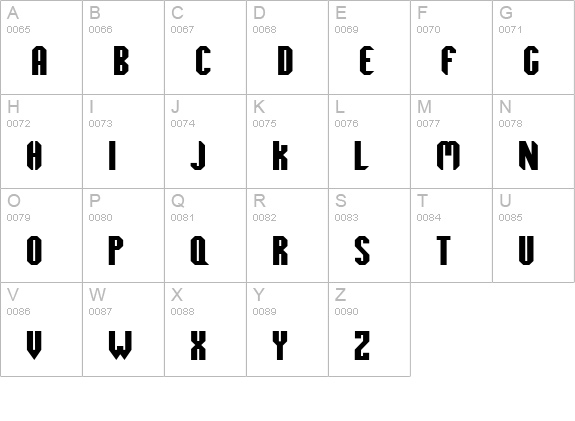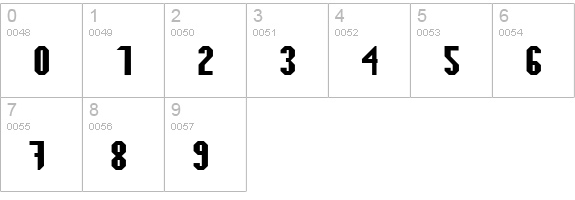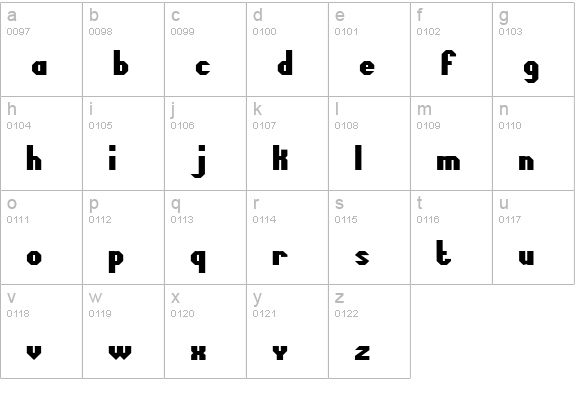
Octogone Tryout Font Details
Octogone Tryout font is a unique and eye-catching display font that combines modern aesthetics with a touch of elegance. Its octagonal shape and sharp edges give it a bold and distinctive look, making it perfect for headlines, logos, posters, and other design projects that require a strong visual impact. This font is available for free download at FontsMarket.com, making it accessible to designers and creatives looking to add a fresh and dynamic element to their work. With its clean lines and geometric design, Octogone Tryout font is sure to make a statement and stand out from the crowd. Whether you're working on a branding project, a website design, or a promotional campaign, Octogone Tryout font offers versatility and style that will elevate your design to the next level. Don't miss out on this amazing font that is both bold and elegant, and download it for free today at FontsMarket.com.